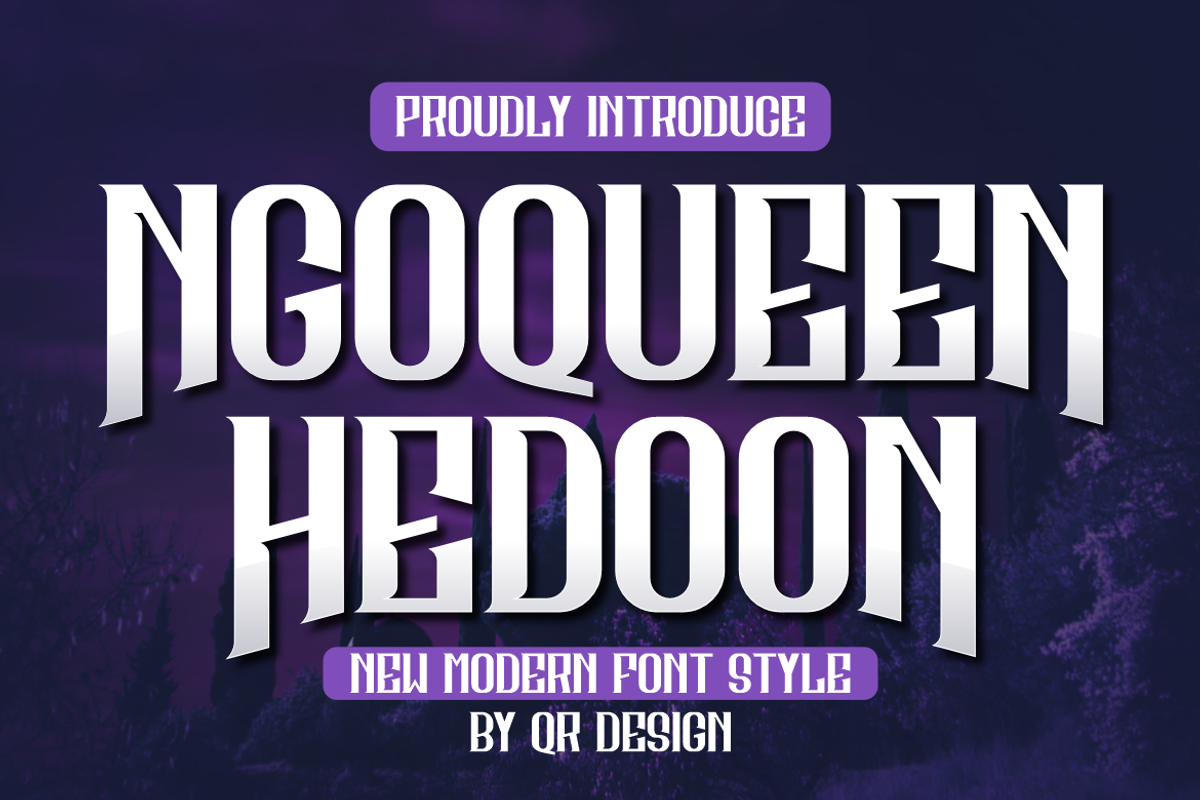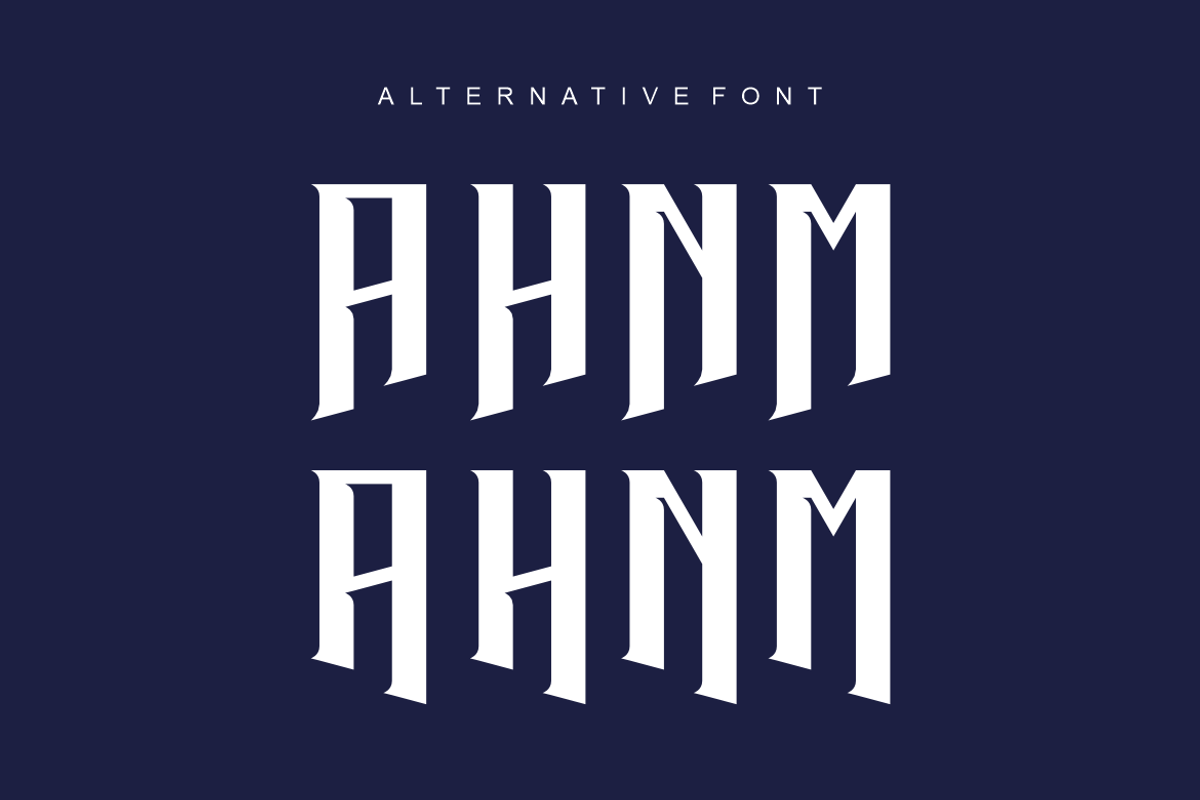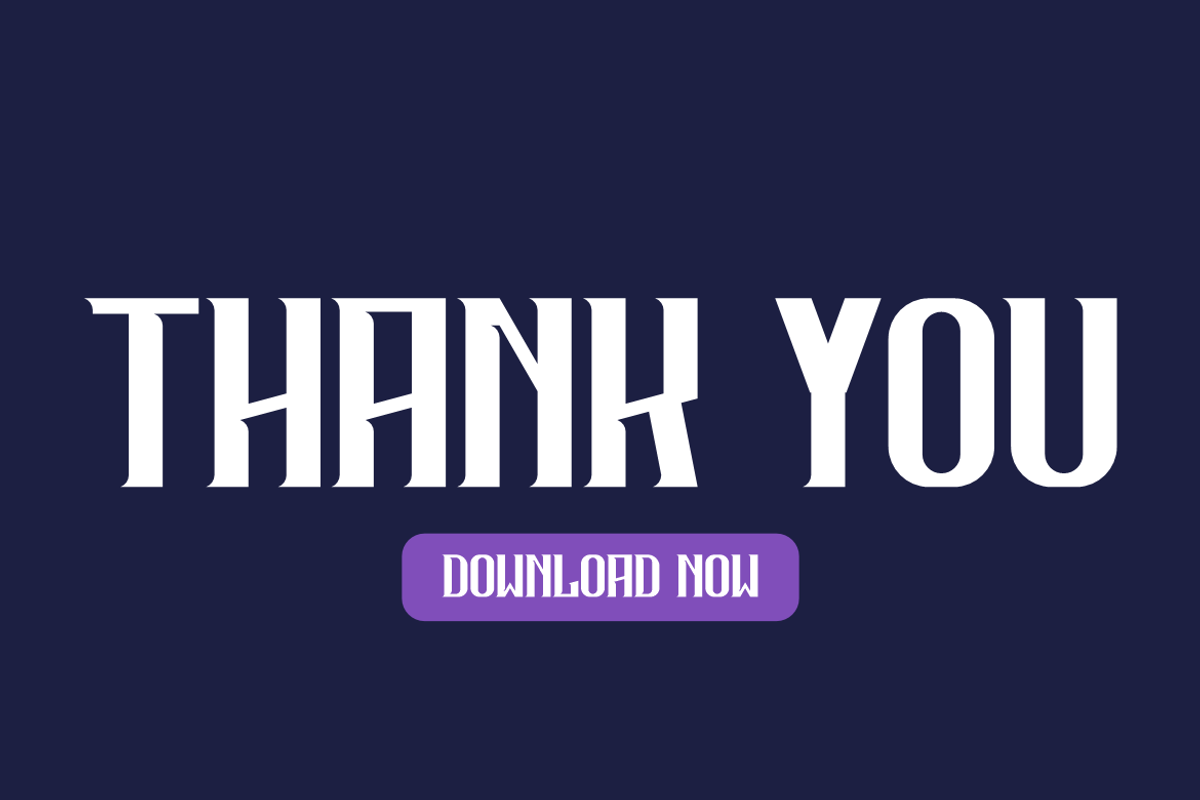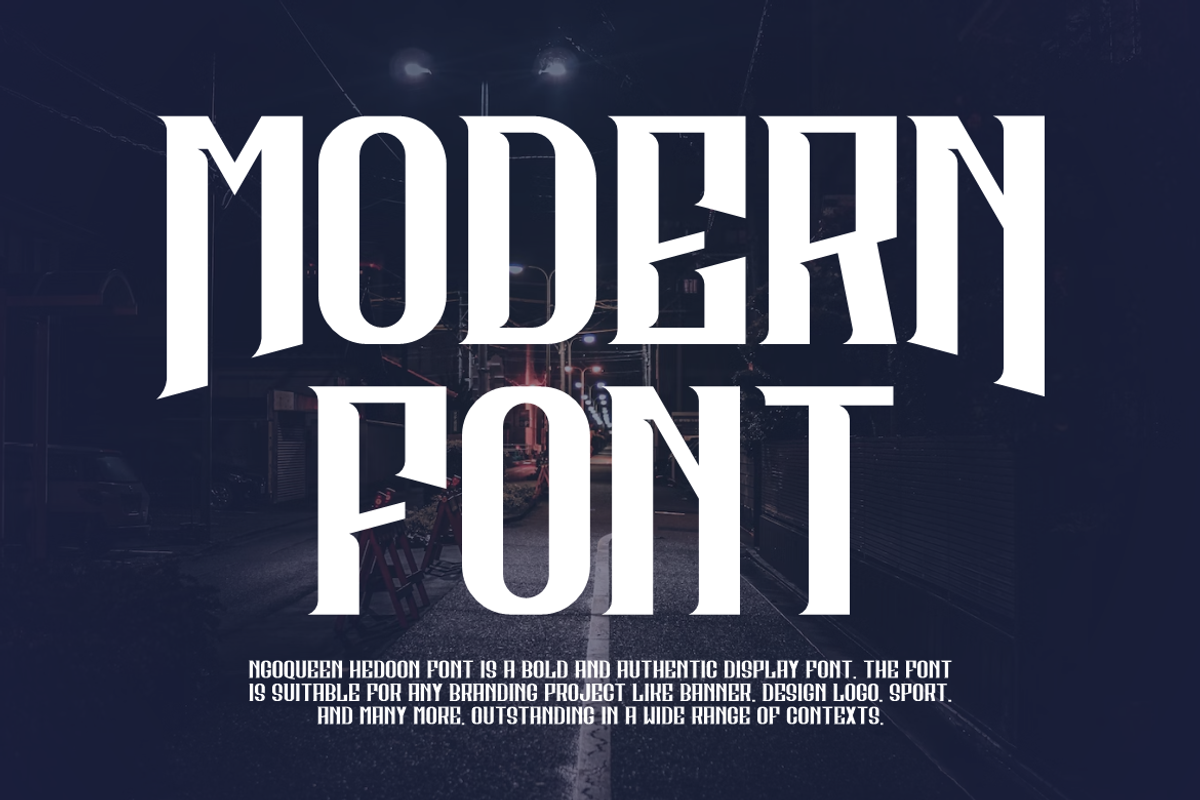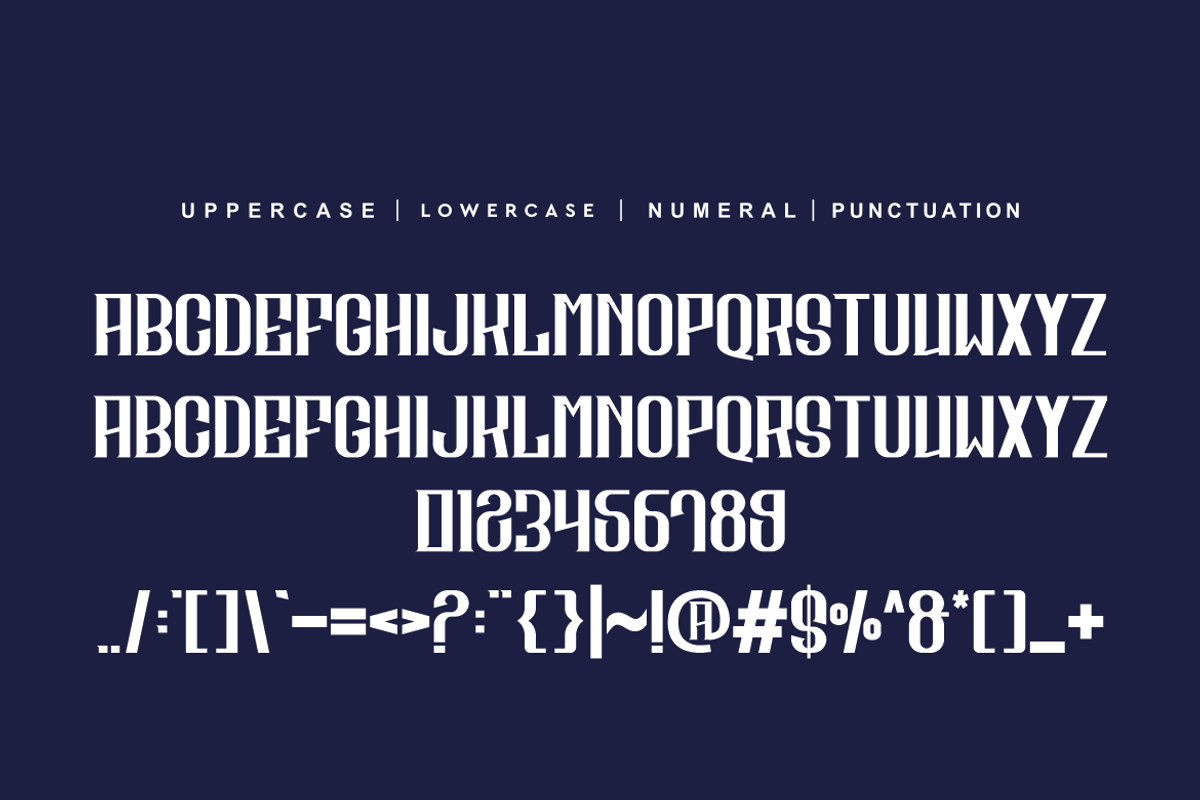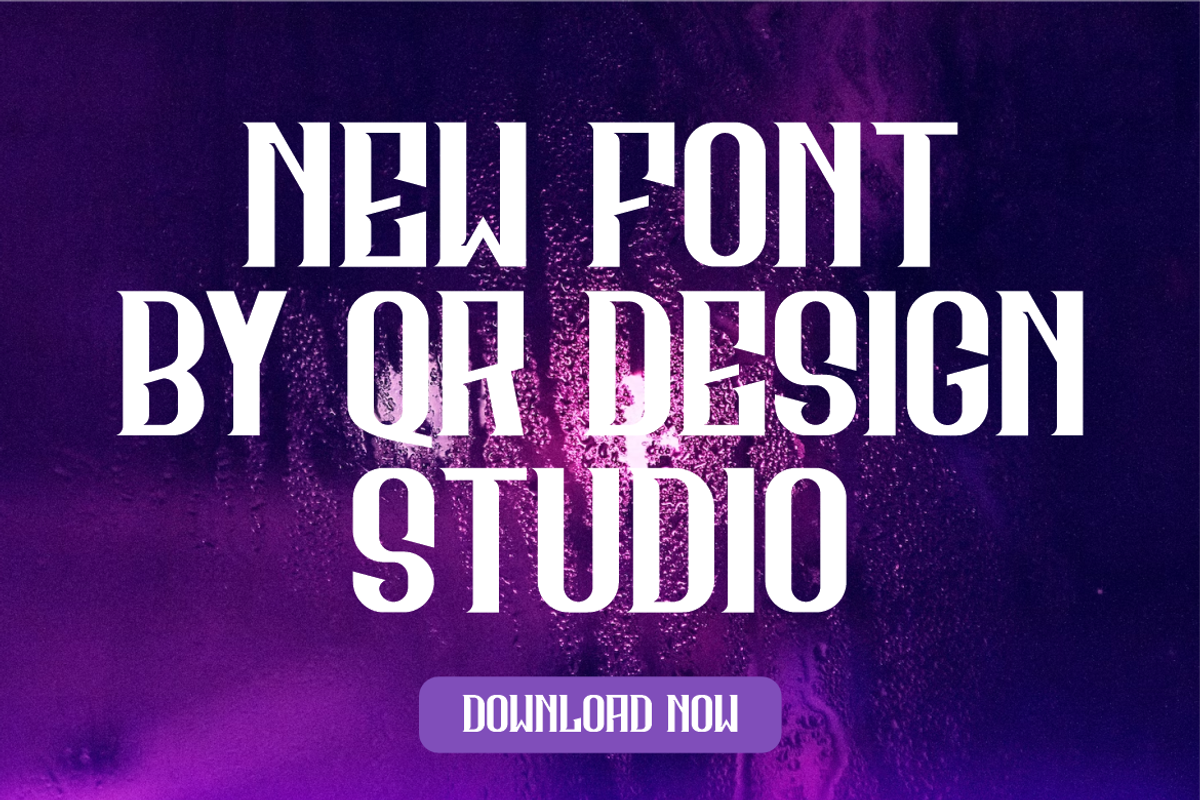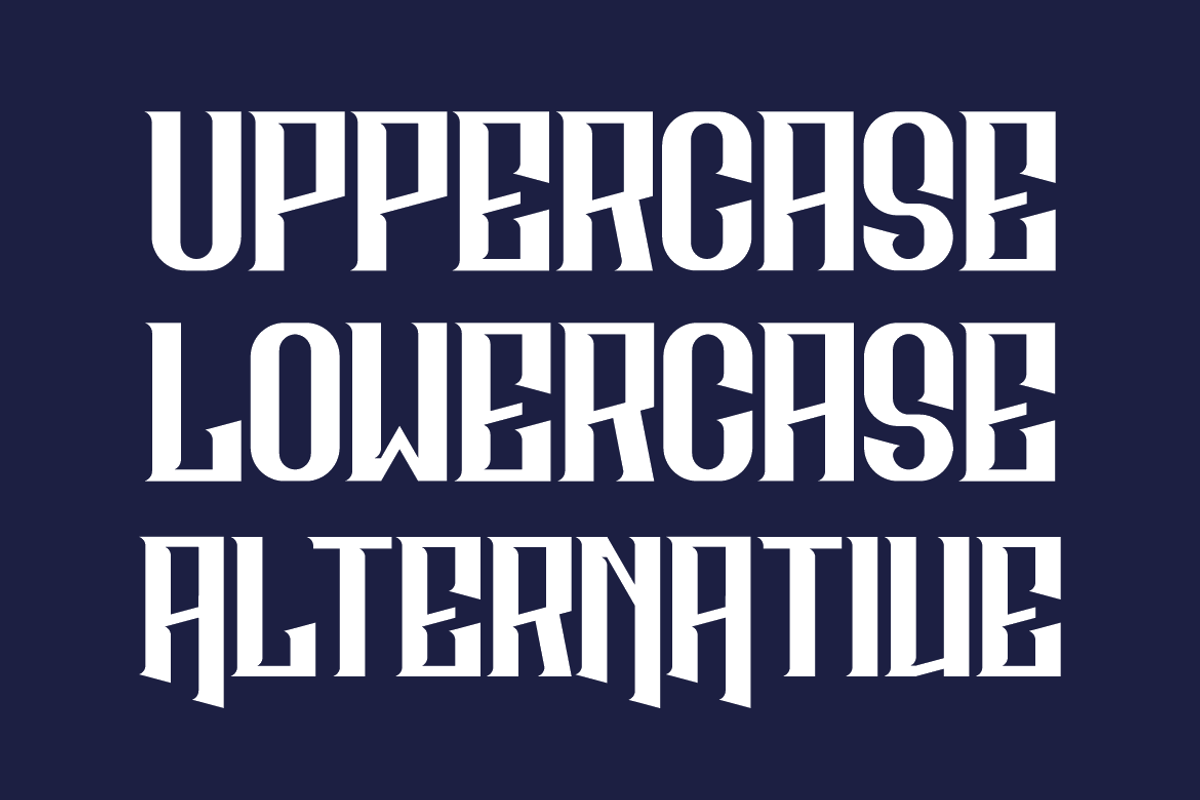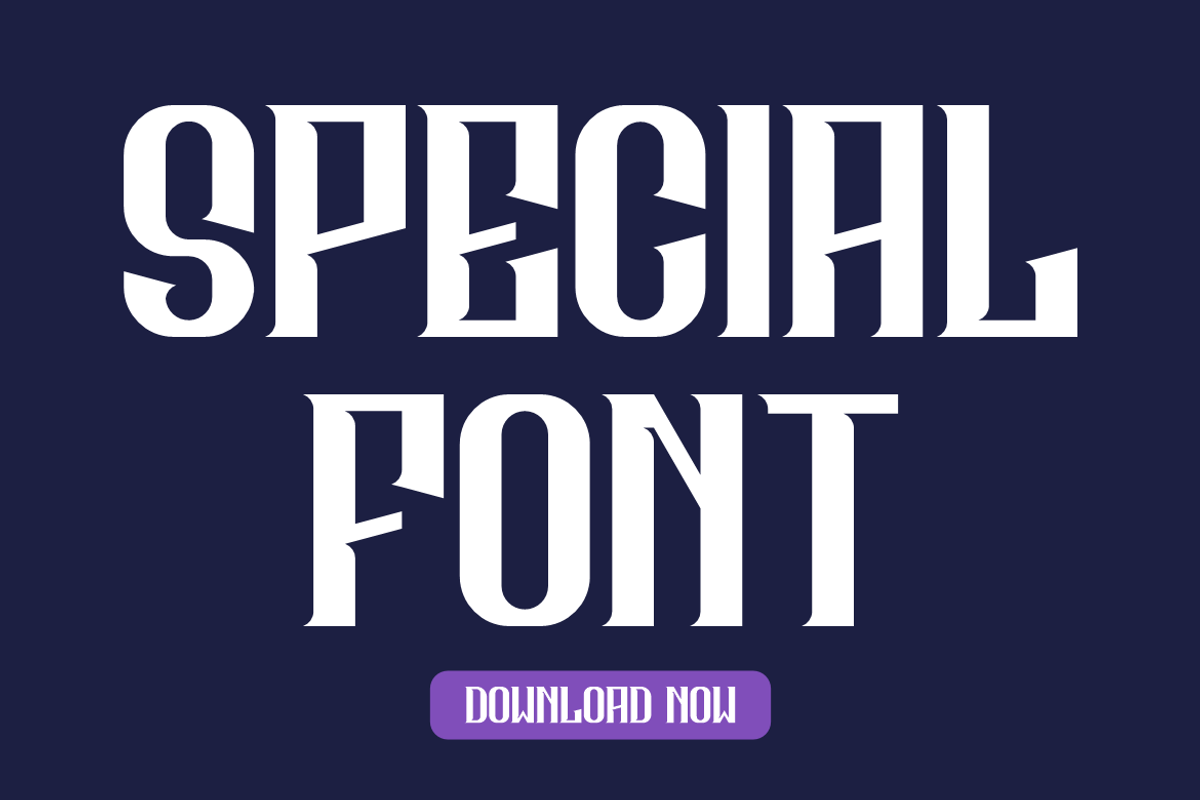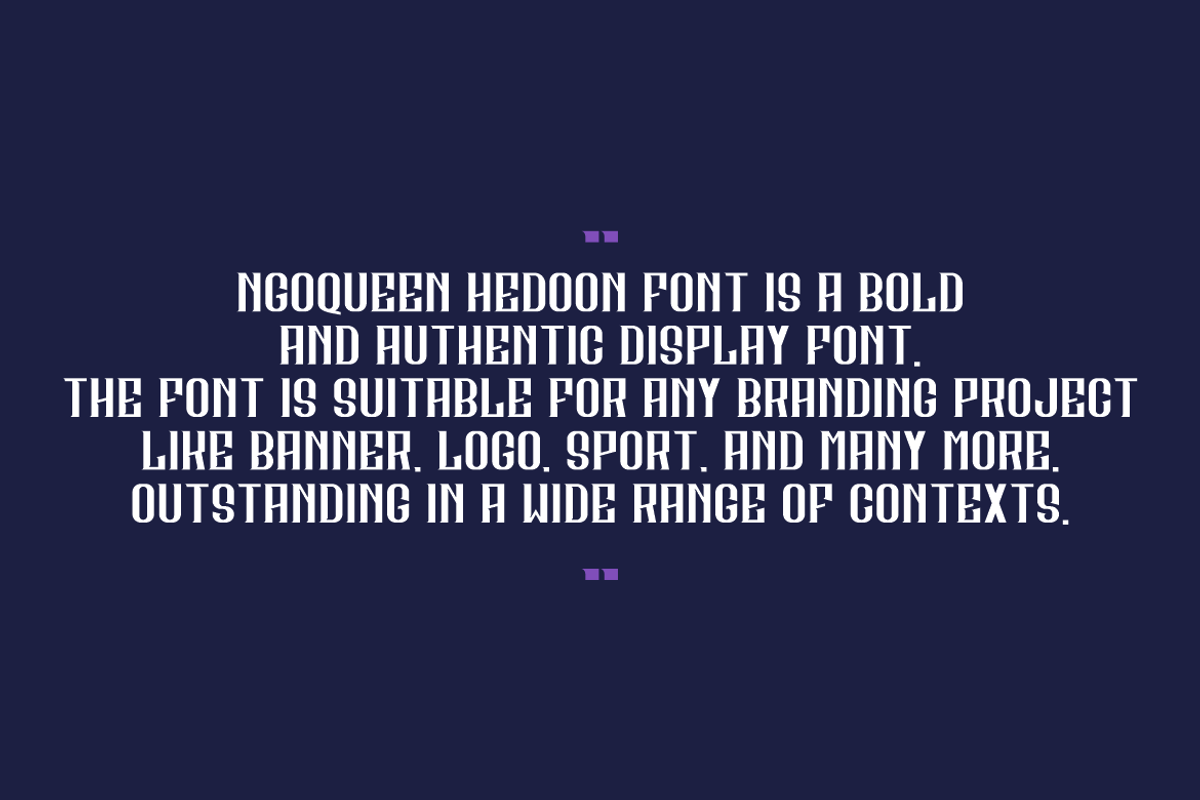
Ngoqueen Hedoon
Ngoqueen Hedoon Font is a bold and authentic display font. The font is suitable for any branding project like logo, sport, and many more. Outstanding in a wide range of contexts.